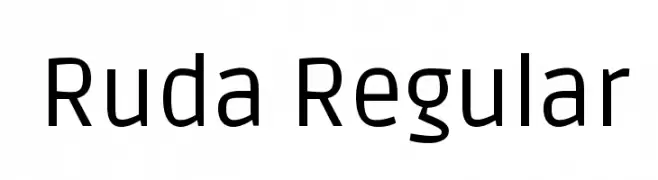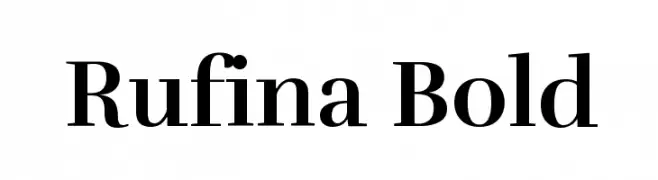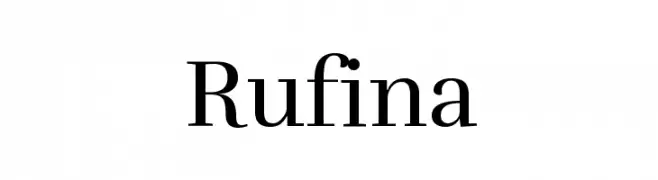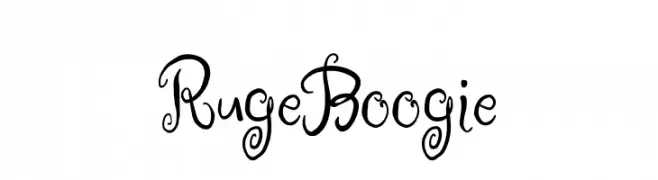
A modern sans-serif font with geometric and balanced letterforms.
A modern serif typeface with high contrast and elegant serifs.
A bold serif typeface with high contrast and a modern yet classic style.
A bold, geometric font with a modern and slightly futuristic style.
A whimsical, curly script font with playful, hand-drawn elements.
A bold, playful font with rounded, geometric characters and unique cutouts.
A modern sans-serif font with a clean and slightly rounded design.